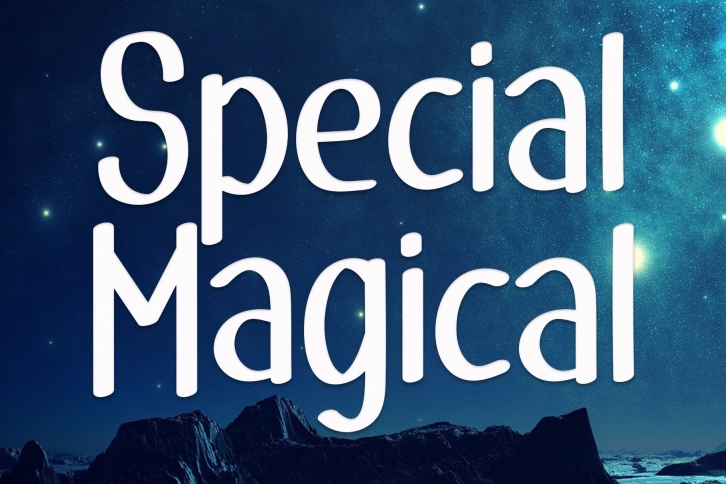
Special Magical is a unique and elegant handwritten font. It looks beautiful on a variety of designs requiring a personalized style, such as wedding invitations, thank you cards, weddings, greeting cards, logos and so on.Â